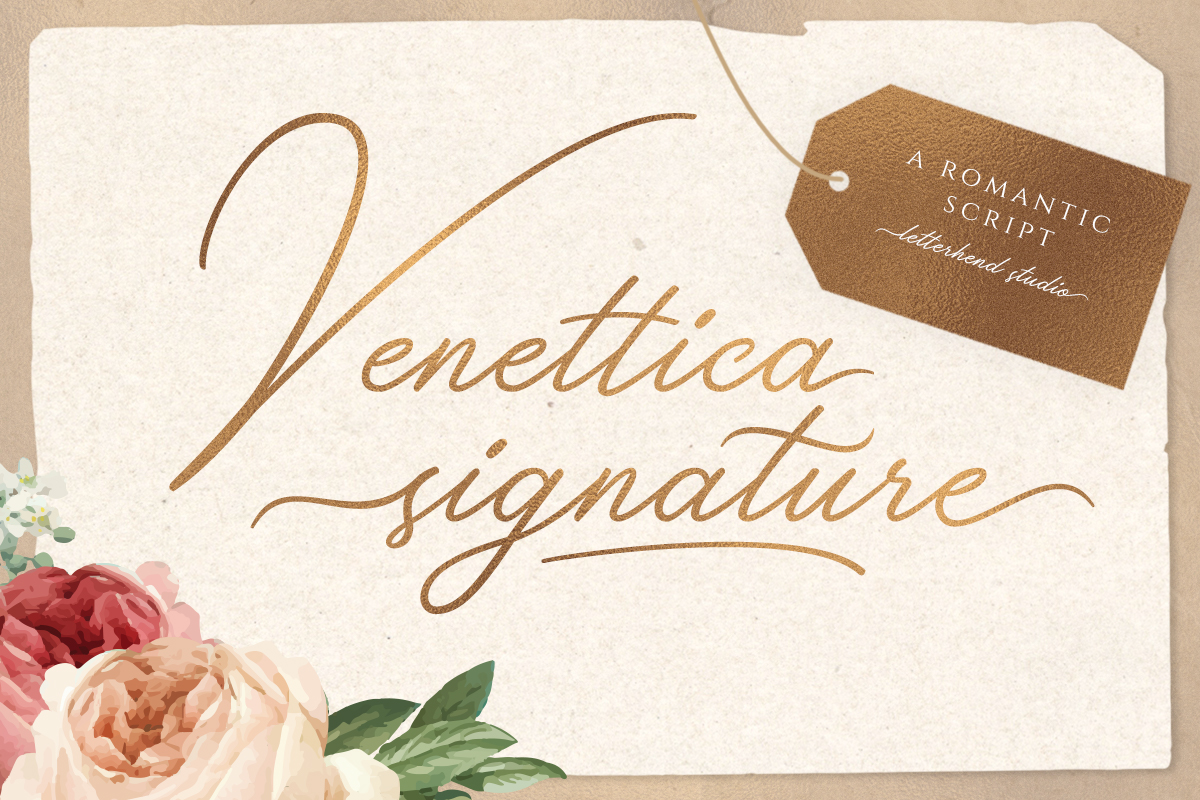
Venettica Signature Romantic Script Font
Venettica Signature Romantic Script Font is perfect for romantic wedding invitation suites, elegant love letter designs, passionate valentine's day materials, intimate bridal shower graphics, romantic anniversary celebrations, tender engagement announcements, heartfelt personal stationery, romantic restaurant branding, luxury romance novel covers, and enchanting love-themed social media content. This passionate typeface brings romantic sophistication to wedding planning services, romantic getaway destinations, intimate dining establishments, luxury jewelry brands, and romantic lifestyle companies.
Venettica Signature Romantic Script Font is exciting because it captures the timeless passion and intimate elegance of romantic Venice through its exquisitely flowing script letterforms that whisper of gondola serenades and moonlit romance. The font features graceful characters with passionate curves and romantic flourishes that evoke the enchanting canals of Venice, the intimate whispers of lovers, and the sophisticated romance of Italian passion. Its distinctive construction demonstrates romantic artistry with carefully crafted flowing elements that create an immediate sense of intimate connection and passionate elegance. The font's romantic presence and Venetian authenticity make it perfect for brands seeking to communicate deep romance, intimate passion, and the sophisticated elegance of timeless love in their visual communications.
Venettica Signature Romantic Script Font family includes various romantic styles: Light Script, Regular Script, Bold Script, Flowing Script, Passionate Script, Elegant Script, Intimate Script, Flourished Script, Condensed Script, Extended Script, Venetian Script, and Romantic variants. Each family member maintains the core romantic DNA while offering different levels of passion for diverse love-focused design applications. The comprehensive font collection ensures consistent romantic branding across wedding campaigns, romantic products, and intimate communication materials.
Whether you're creating romantic brand identities, designing wedding marketing materials, developing passionate website headers, or crafting love-focused promotional campaigns, Venettica Signature Romantic Script Font delivers outstanding romantic appeal and Venetian authenticity. The font's distinctive passionate personality excels in romantic logos, wedding packaging design, intimate applications, and love projects where romantic elegance and passionate sophistication are essential.